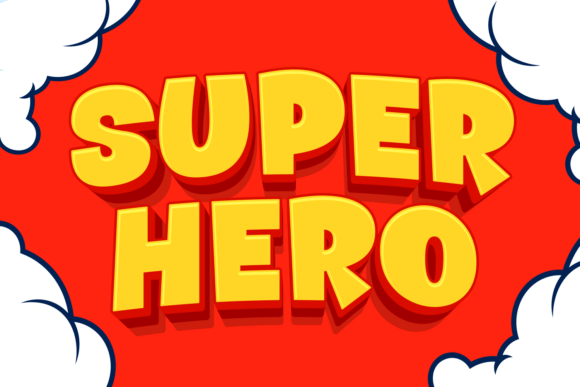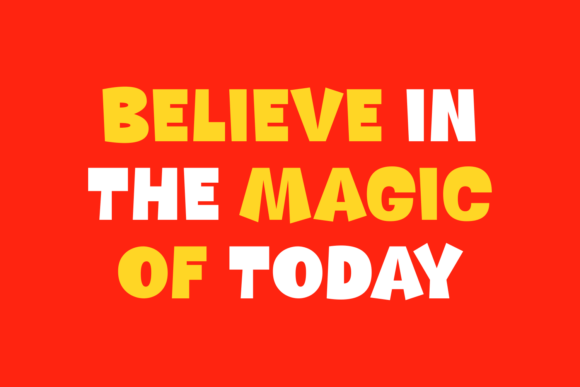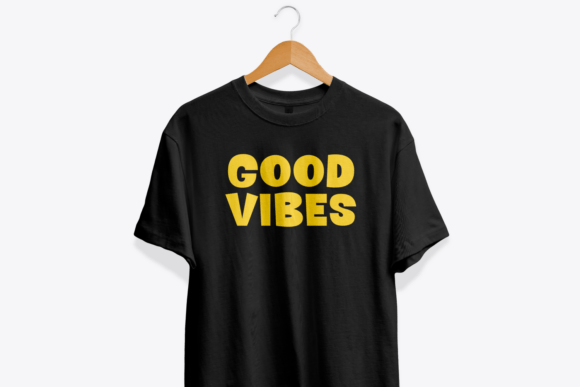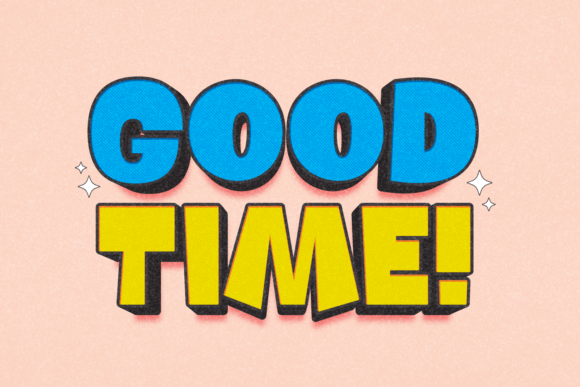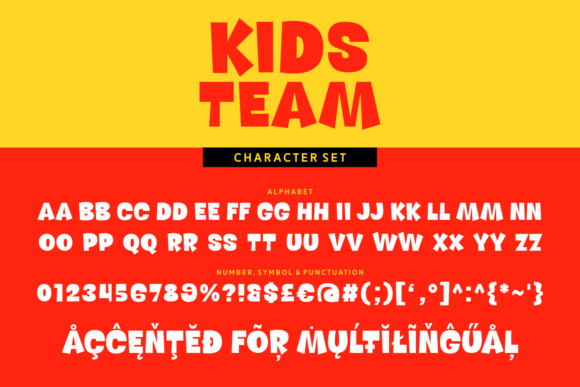
Introduction to Kids Team Font
“Kids Team” is an enchanting display font, bursting with superhero energy and a distinct cartoon style.
With its eye-catching charm, it spreads fun, joy, and a sense of celebration The allure of this font lies in its cheerful and impactful aesthetics, making it the perfect headline and comic book font.
Key Features of Kids Team Font